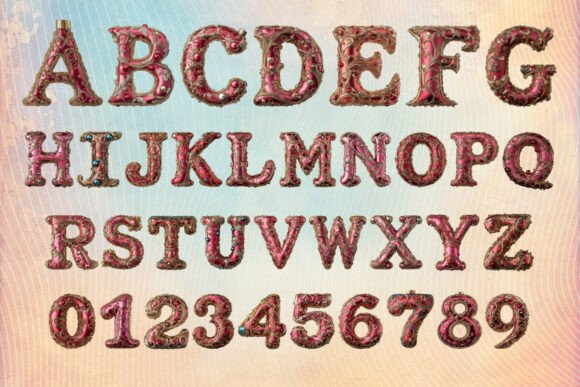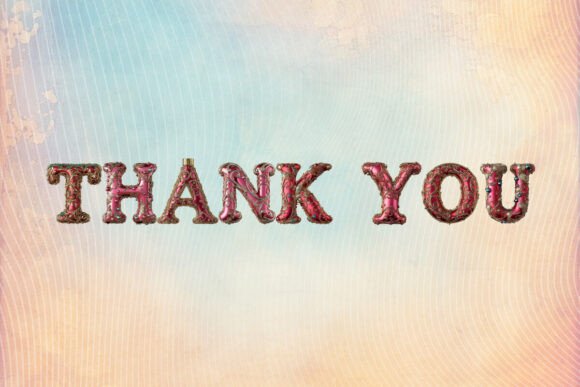
Christmas Ornament Font
Introducing the Christmas Ornament Alphabet, a red-hued font that is the embodiment of festive joy and holiday spirit. Skillfully crafted for use on Christmas trees, banners, and gift cards, it’s a vivid tribute to the season of giving. Consisting of 26 unique letters and 10 numerals, this all-encompassing font offers a visually entrancing way to send holiday messages to your loved ones. Perfect for family celebrations and friendly get-togethers, this Christmas-themed font allows you to add a festive touch to every aspect of the holiday season. Get creative with the Christmas Ornament Alphabet, where every letter and number sparkles with holiday cheer.